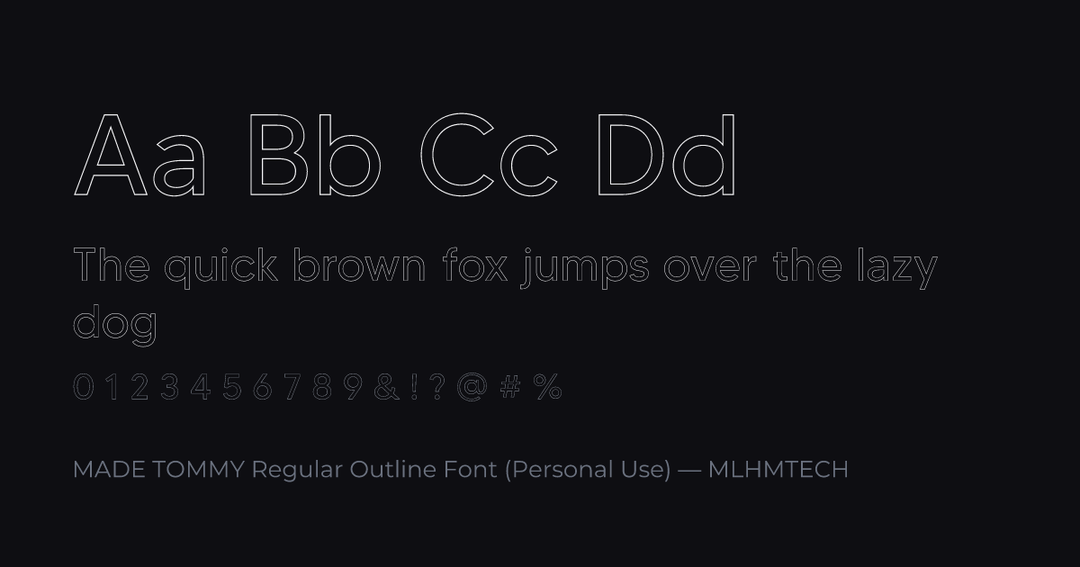
MADE TOMMY Regular Outline Font (Personal Use)
MADE TOMMY Regular Outline is a clean, modern outline font ideal for headlines and branding. Perfect for personal creative projects.
MADE TOMMY Regular Outline is a distinctive display font with a clean, outlined design that adds a modern touch to any project. Its geometric letterforms and open counters make it highly legible at large sizes, perfect for logos, posters, and social media graphics.